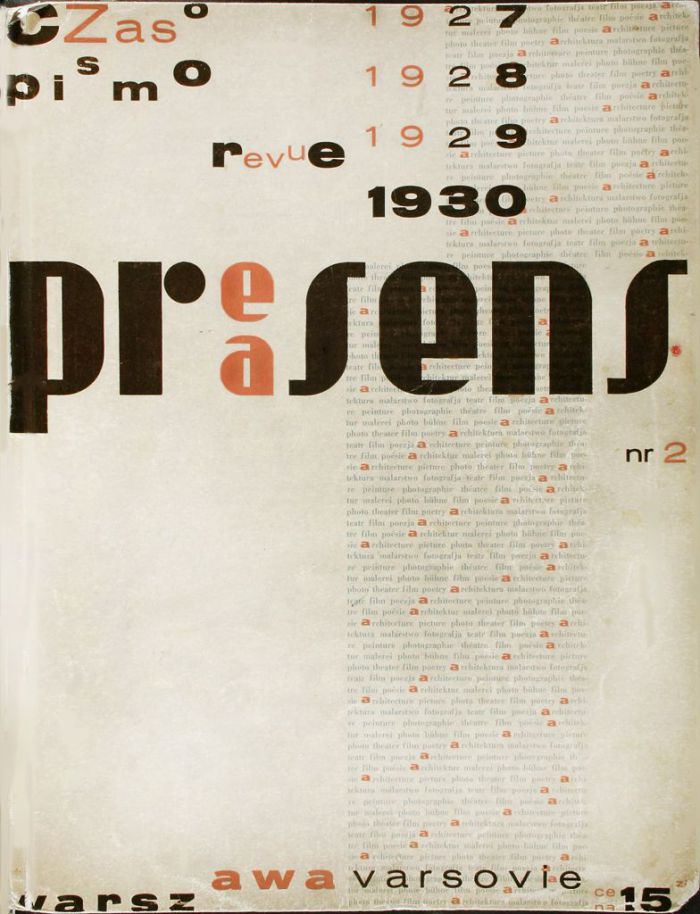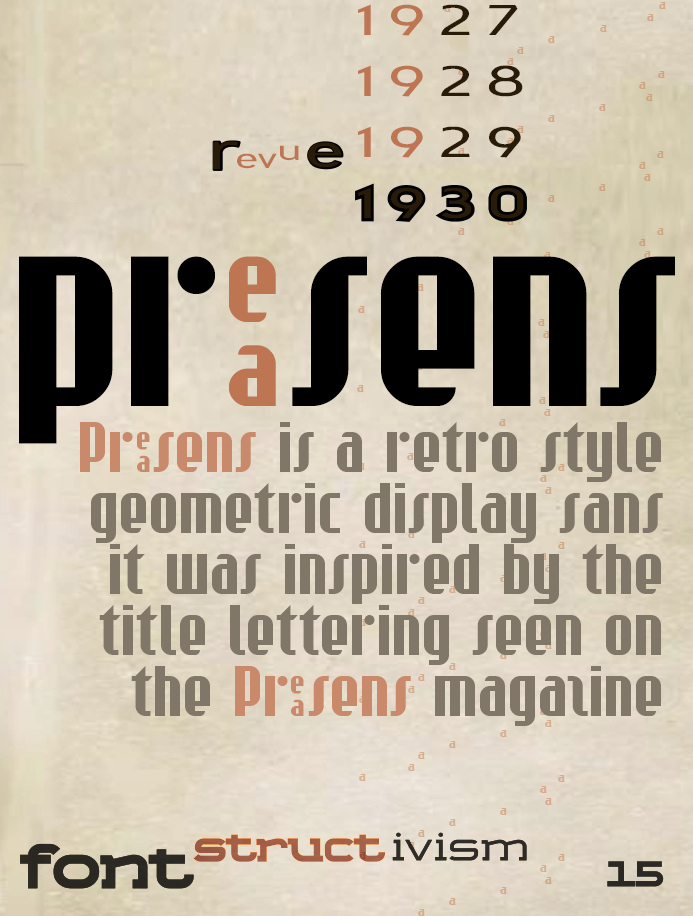
• STF_PRÆSENS - A geometric retro display sans
The source for this font was the lettering seen on the cover of 1930's second issue of "Præsens". A Polish avant-garde artistic magazine from the interwar period that was designed by the architect Szymon Syrkus. The letters on the magazine's title formed the baseline to extrapolate the complete font.
The magazine got published throughout the first part of the previous century and was similar to other magazines from that same era such as:
DeStijl, Wendingen & Het Overzicht.
Original magazine cover.
[UPDATE] added extra latin language support plus many other new glyphs. Many small changes and refinements applied. (partial kerning ATM)
Magazine front inspired sample image with "Praesens" font in use as well as some of my other fonts for the typographic decorative finish.